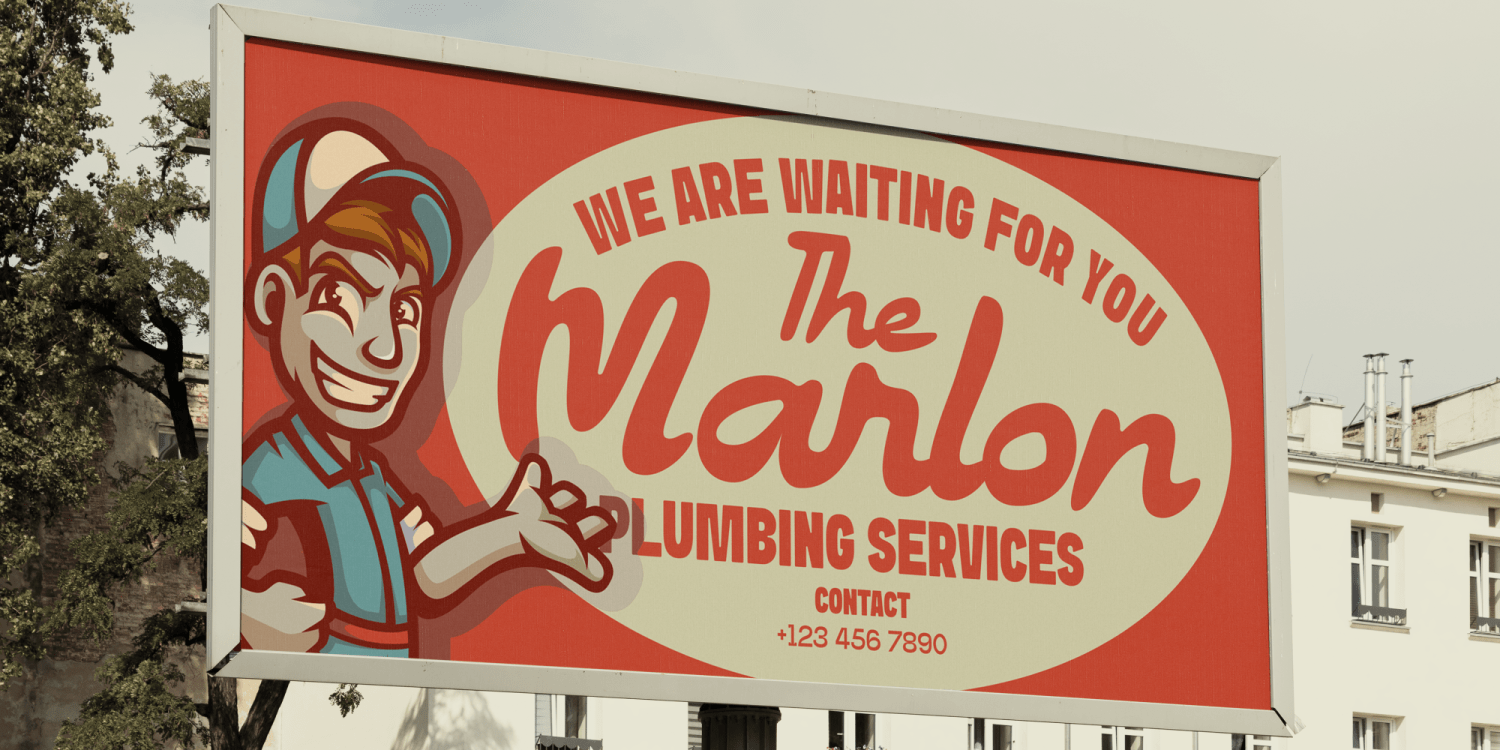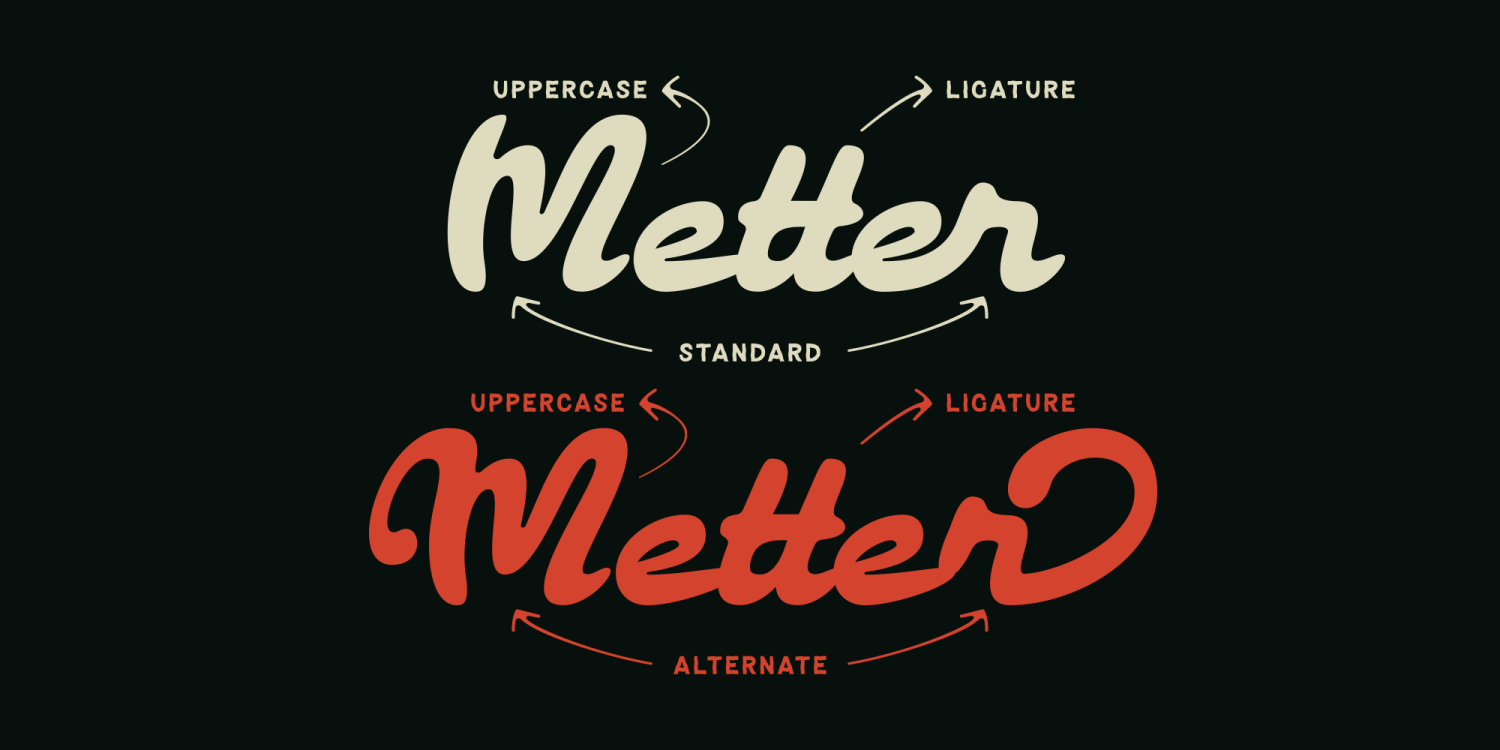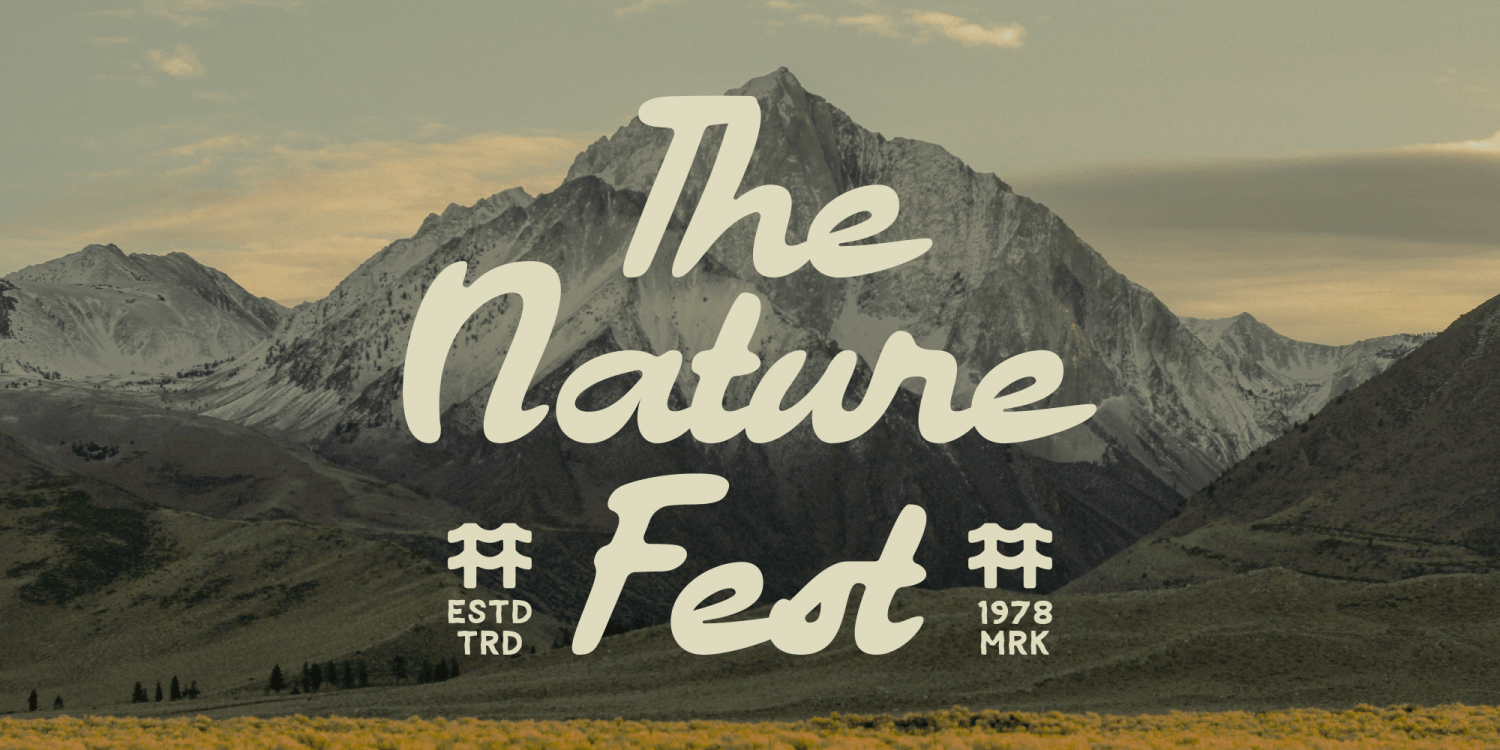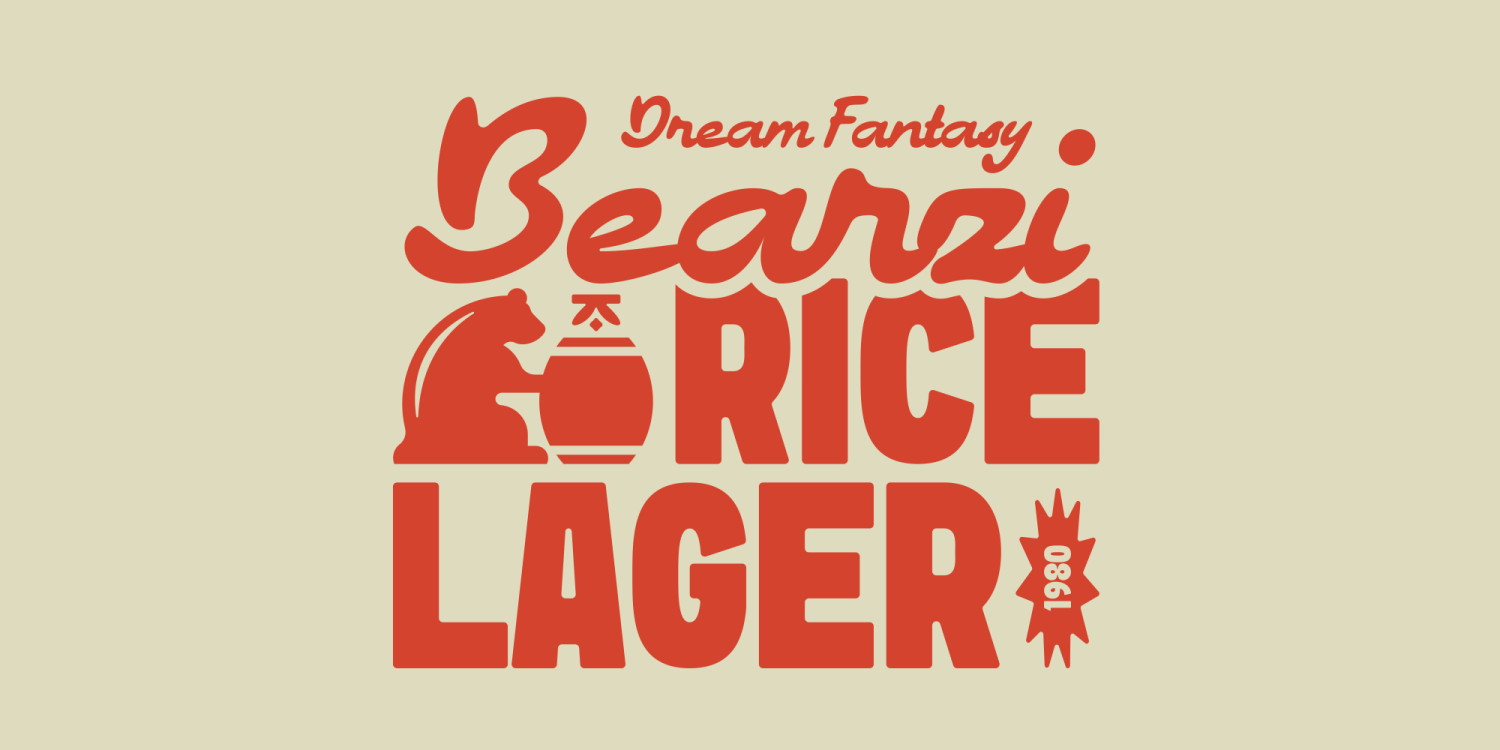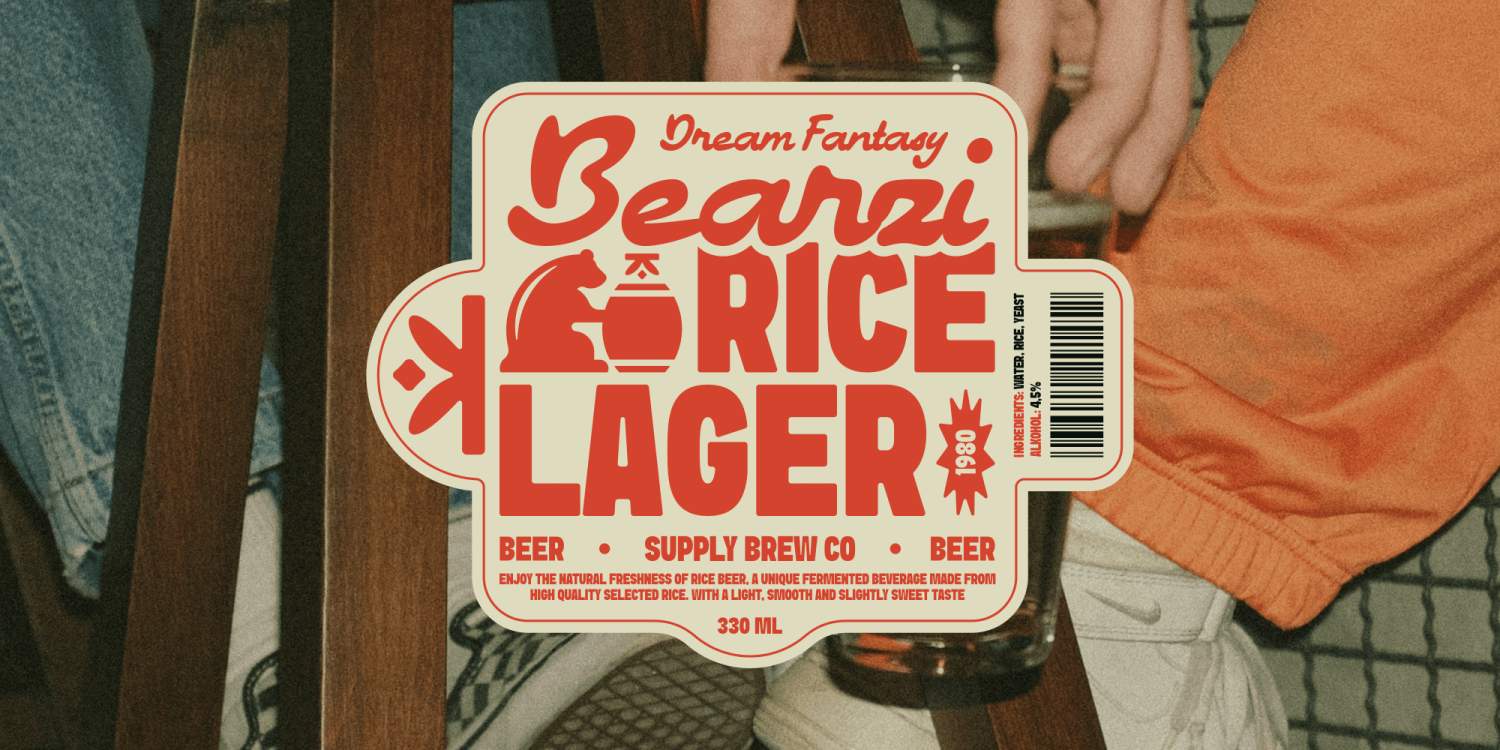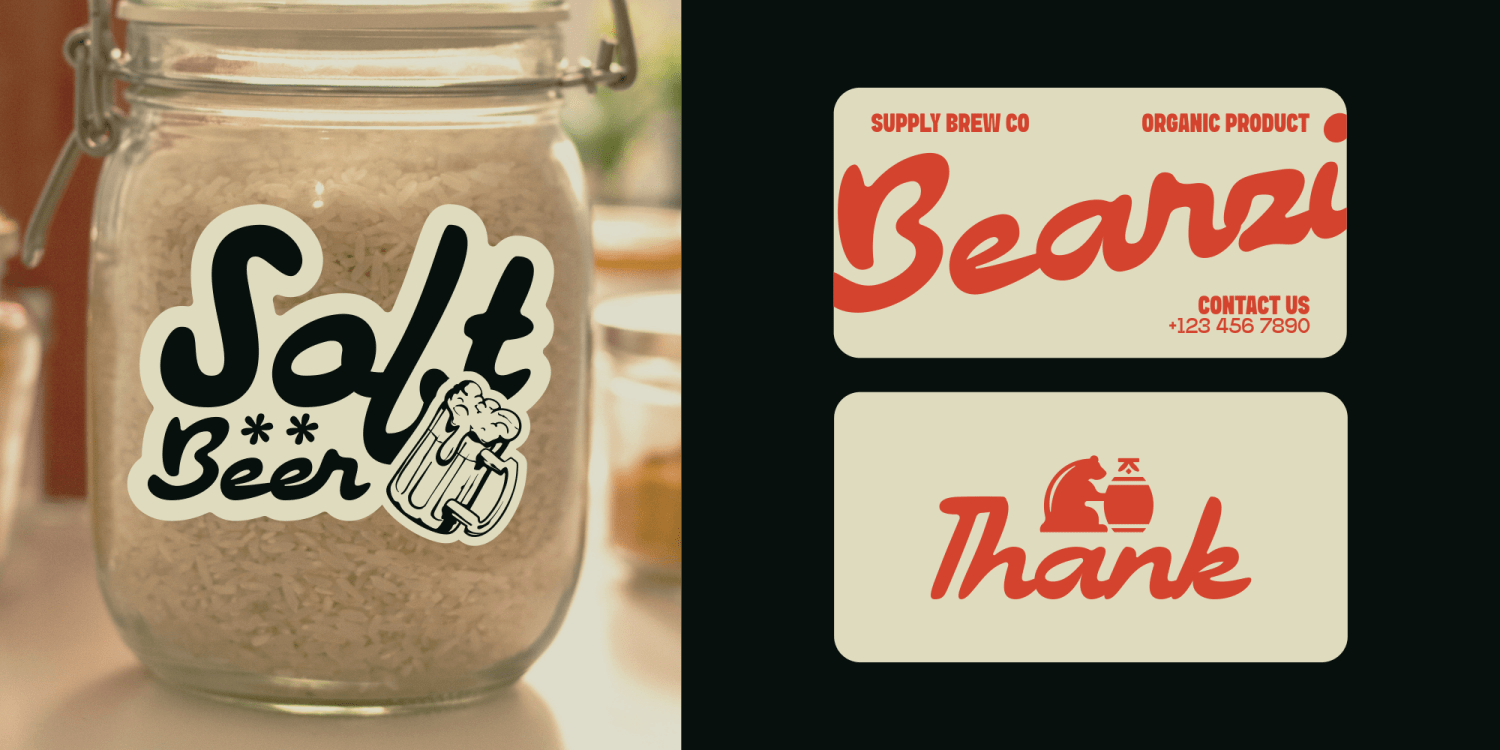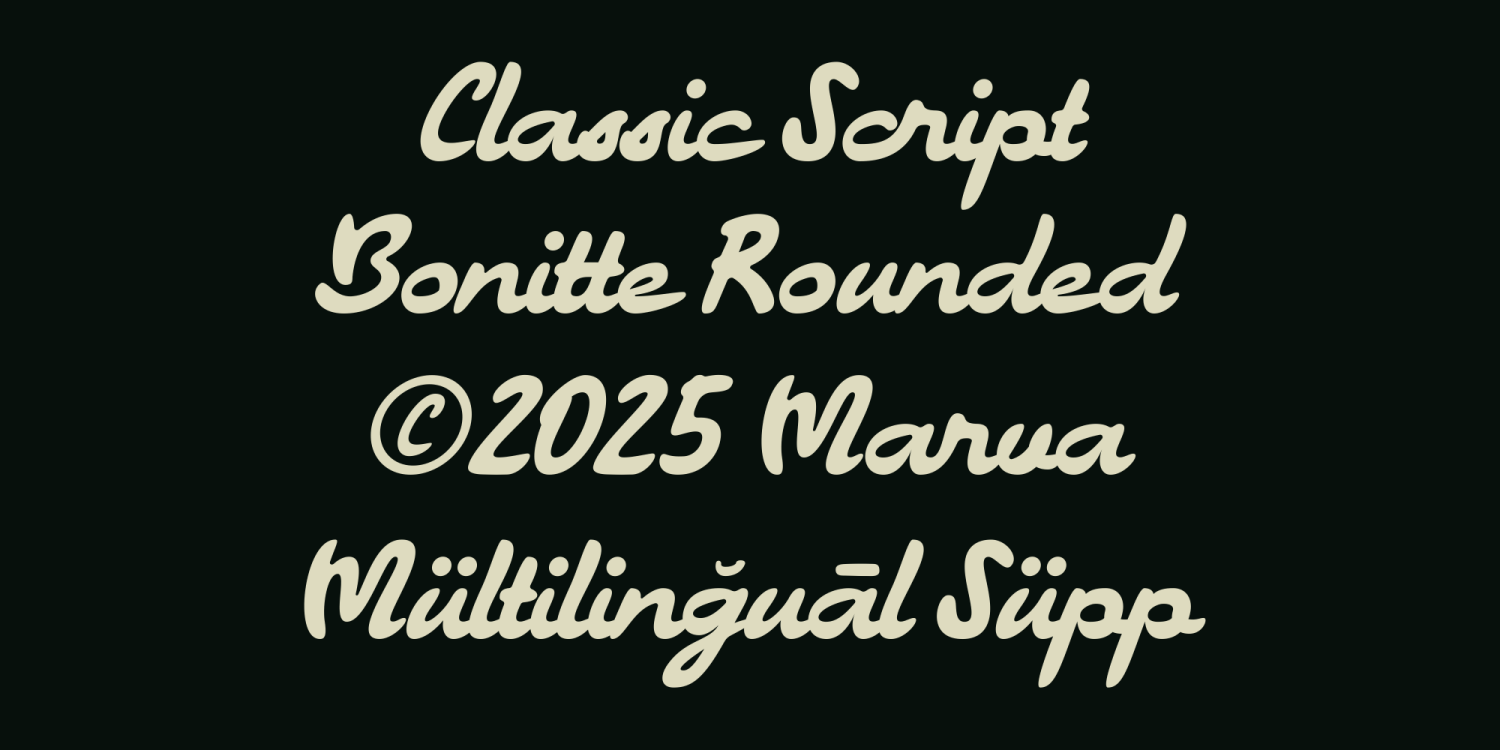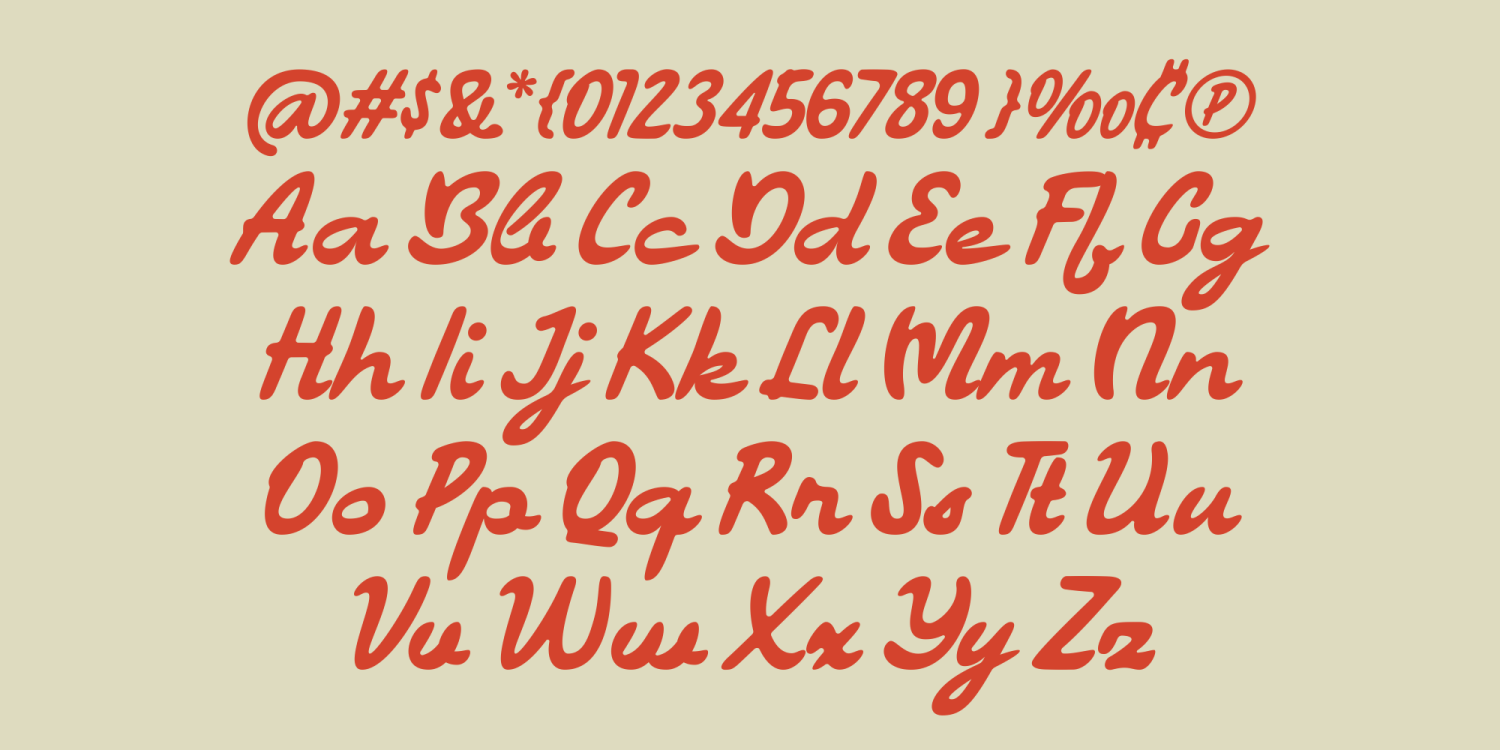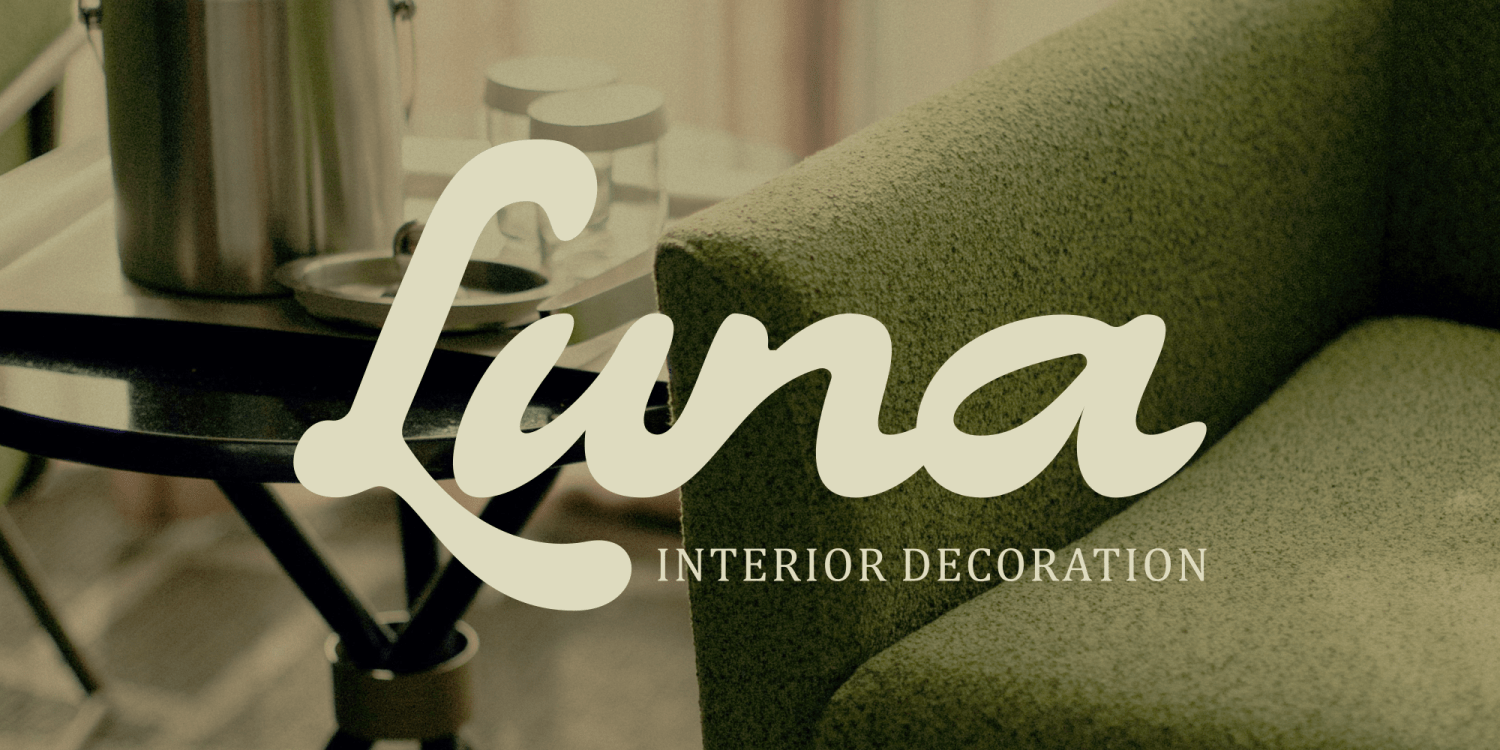
Bonitte
Font Family by Marvadesign
Bonitte is a charming and playful classic script font with a smooth rounded style that evokes a nostalgic and friendly vibe. Designed with over 400 glyphs, it includes ligatures and alternate characters, offering excellent flexibility for various design applications. Its handwritten feel, clean curves, and multilingual support make it perfect for branding, packaging, logos, or vintage-inspired signage. Created by Marvadesign in 2025, Bonitte Rounded combines elegance and approachability in one beautiful script typeface.